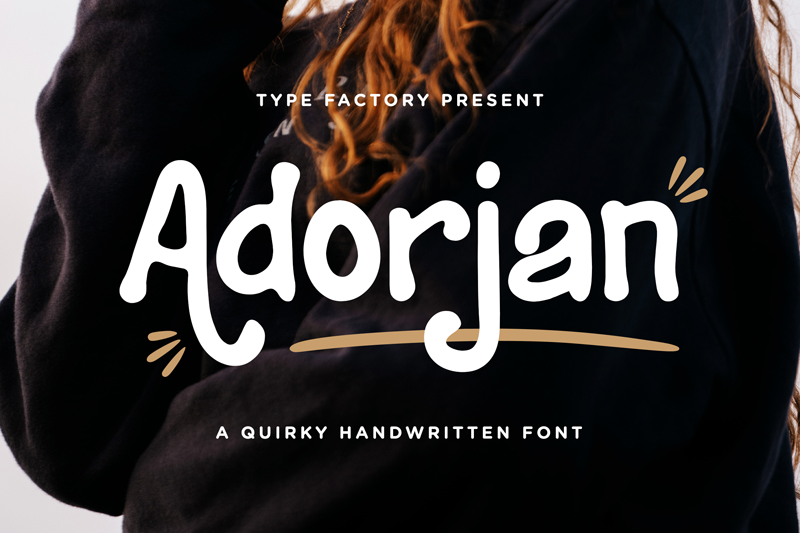
Adorjan is a sweet and quirky handwritten font. Dainty and joyful, this font will be ideal for writing neat cards, album cover, quotes, cafe menu, coffee-themed, greeting card or any other design that may need a personalized touch! Full Version Download Here : https://typefactory.co/product/adorjan-quirky-handwritten-font/ https://www.creativefabrica.com/product/adorjan/ref/501262/ |